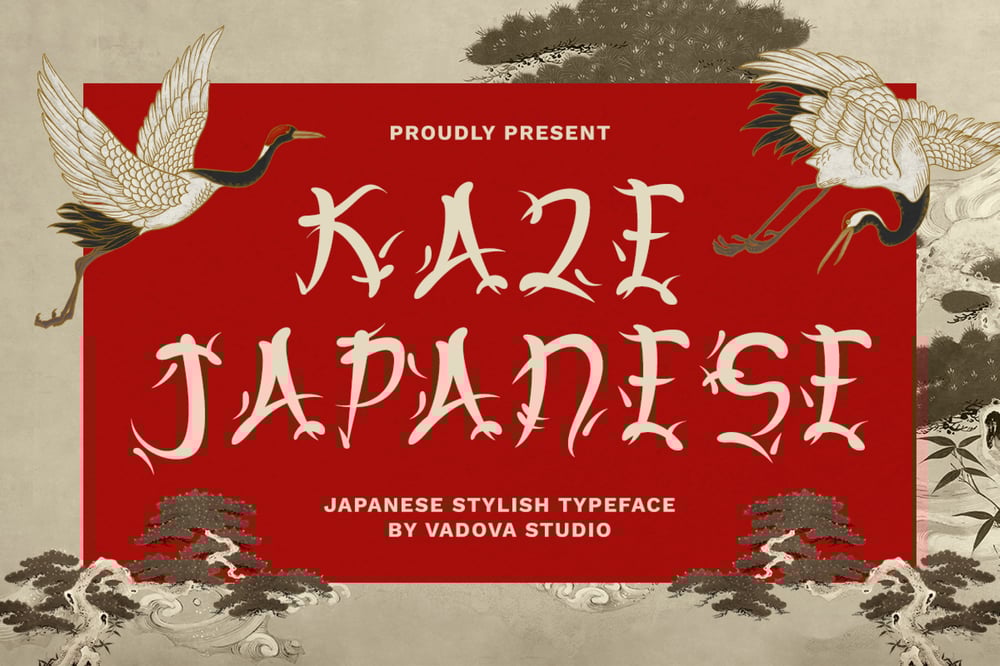
Kaze Japanese Font Family was designed by published by Vadova Std. Kaze Japanese contains 1 styles and family package options. Kaze Japanese is a stylish and artistic typeface inspired by traditional Japanese calligraphy, blending elegance with a modern edge. With its flowing, organic strokes and cultural aesthetics, this font is perfect for branding, posters, invitations, book covers, packaging, apparel designs, and projects that seek an authentic Japanese touch.